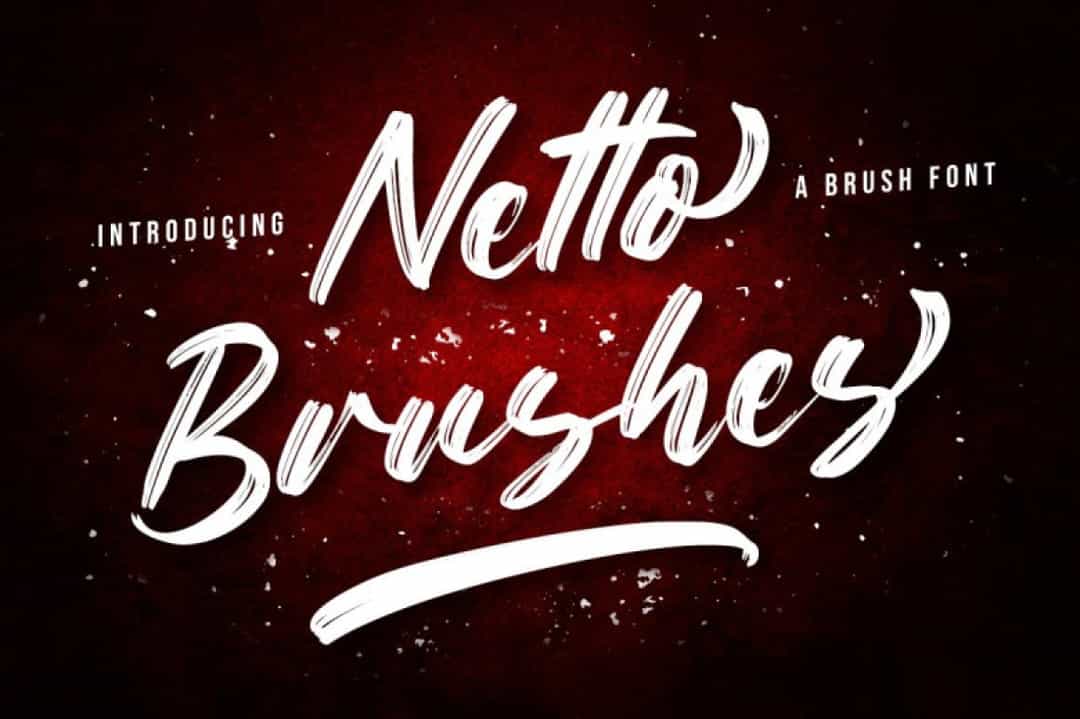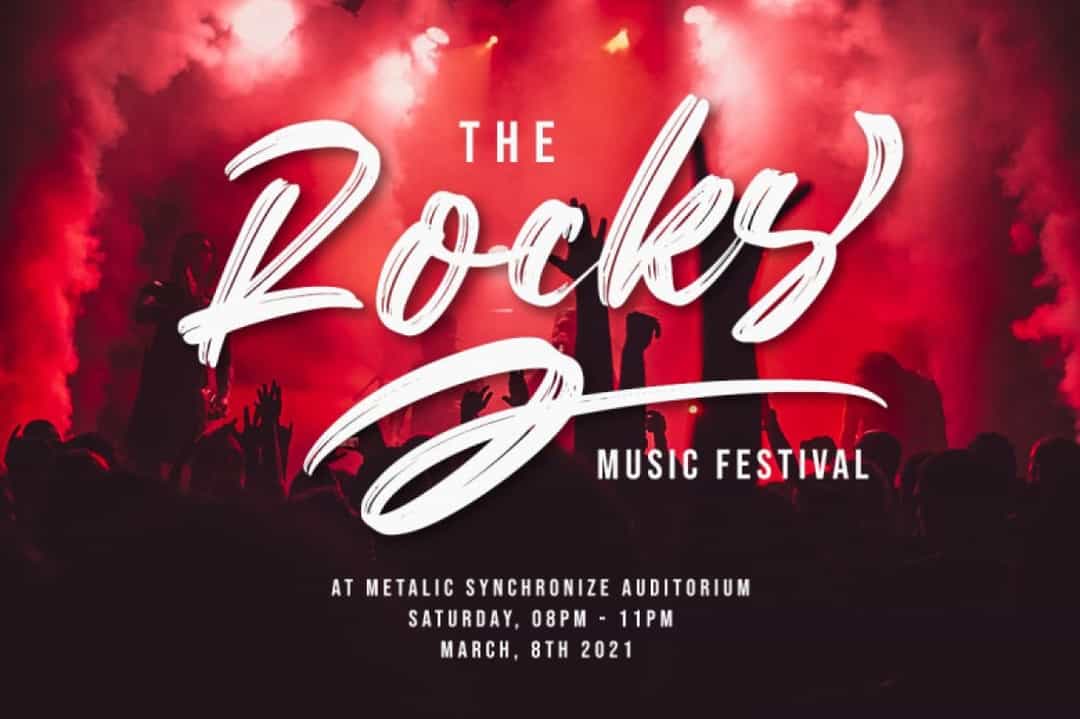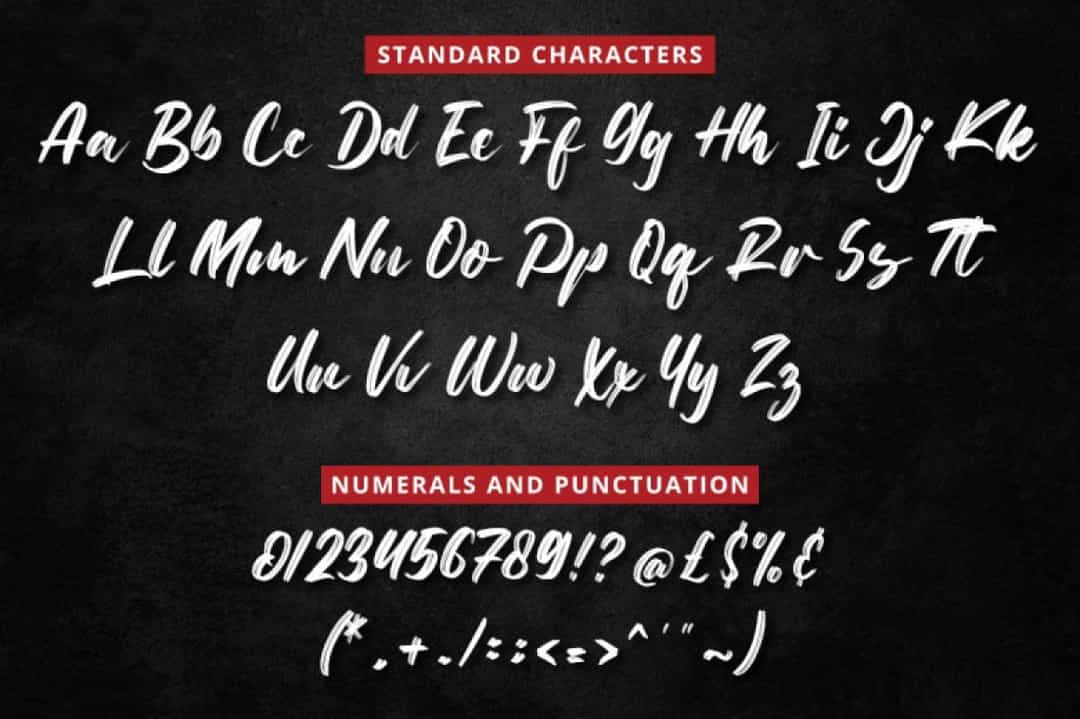
Discover Netto Brushes Font, part of the Brush collection—a versatile and unique font perfect for adding a personal touch to your projects. Download it for free and enjoy crafting designs with style, from invitations to social media posts. This font is available exclusively for personal use, giving you the freedom to create without limits. Unlock your creativity with Netto Brushes Font today!
Netto Brushes Font is an eye-catching brush script typeface created to lend headlines or logotypes an upscale feel. This font exudes energy, confidence, and vibrance while adding a wonderful sense of nostalgia to your design project.